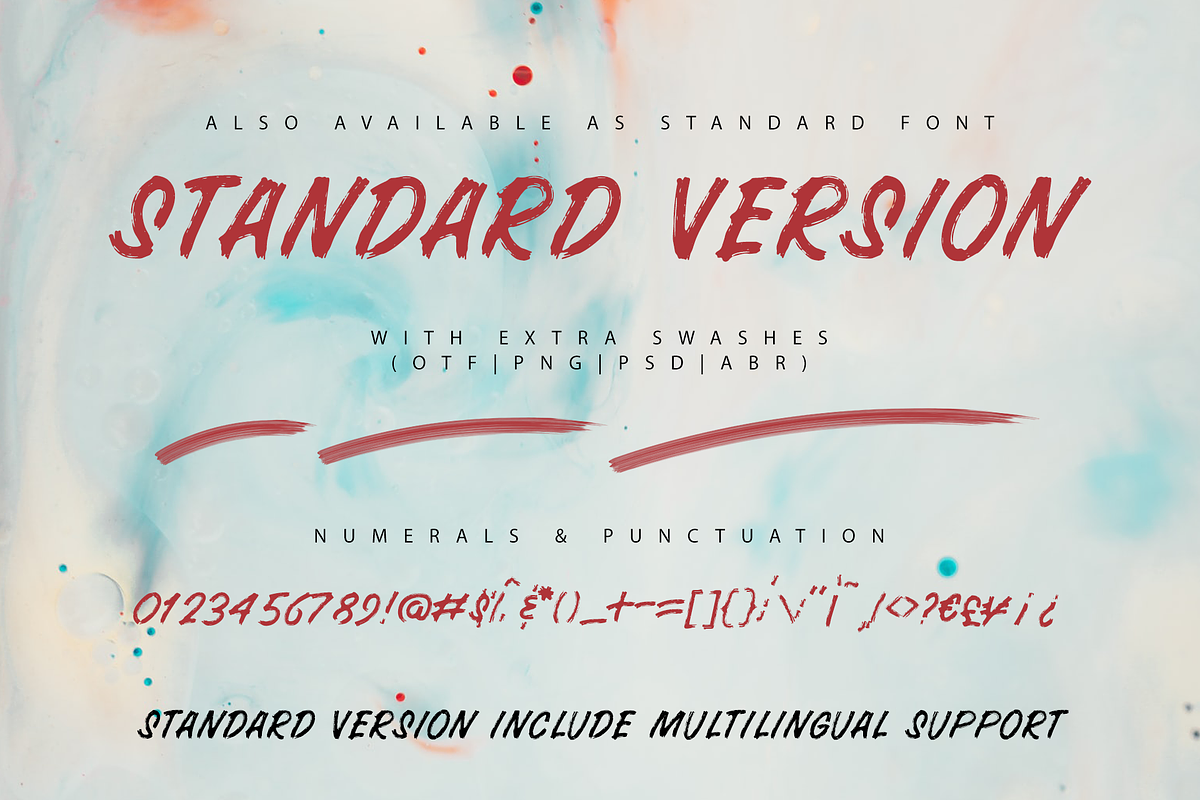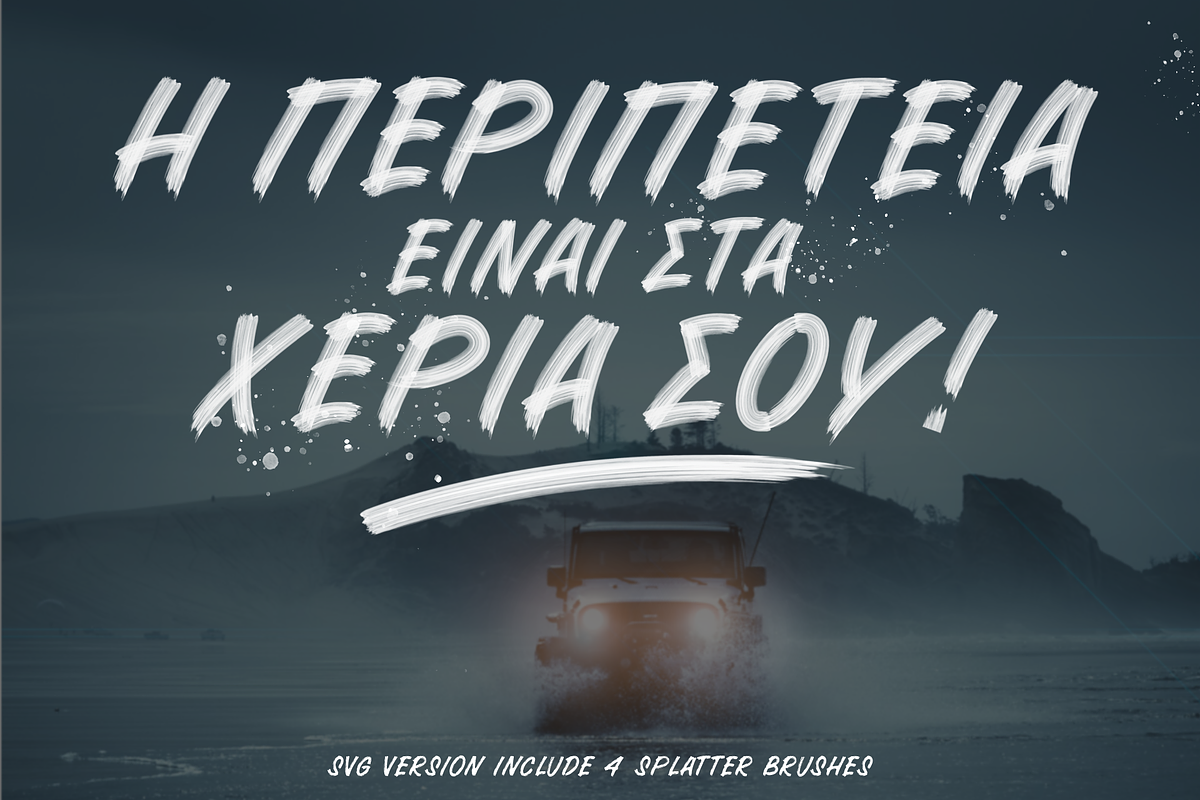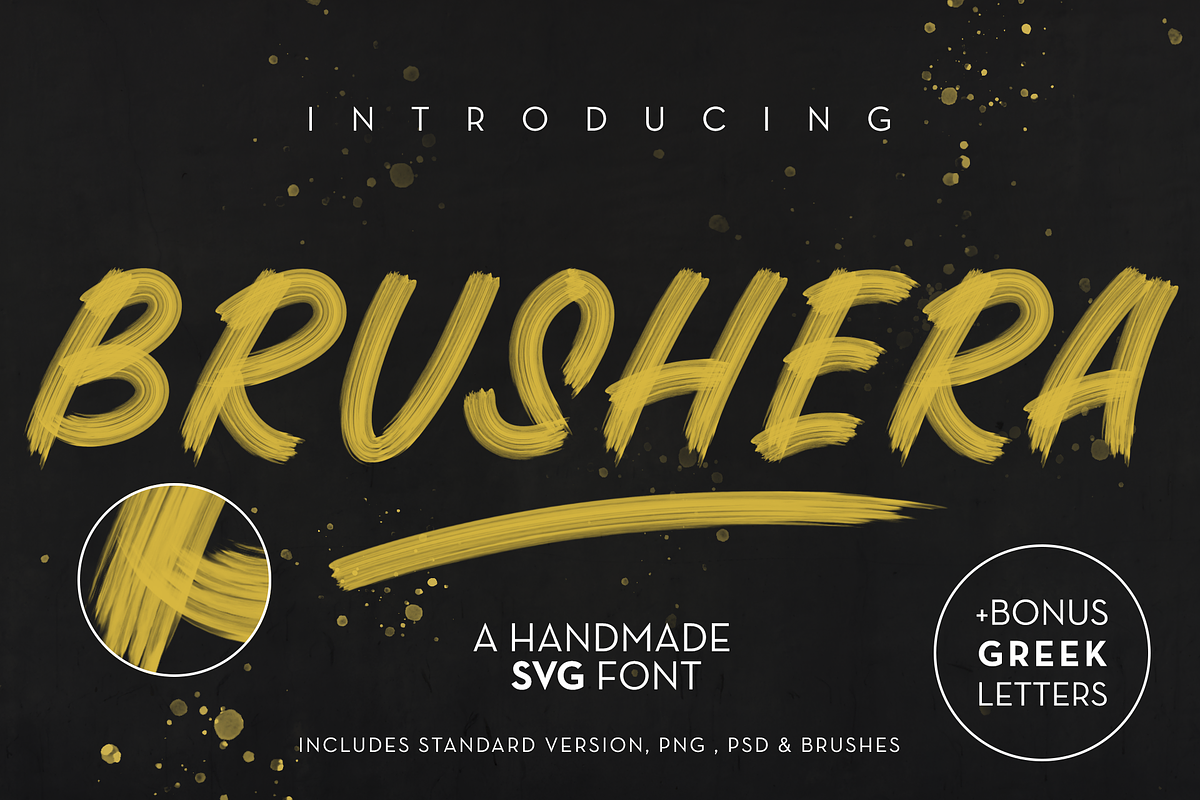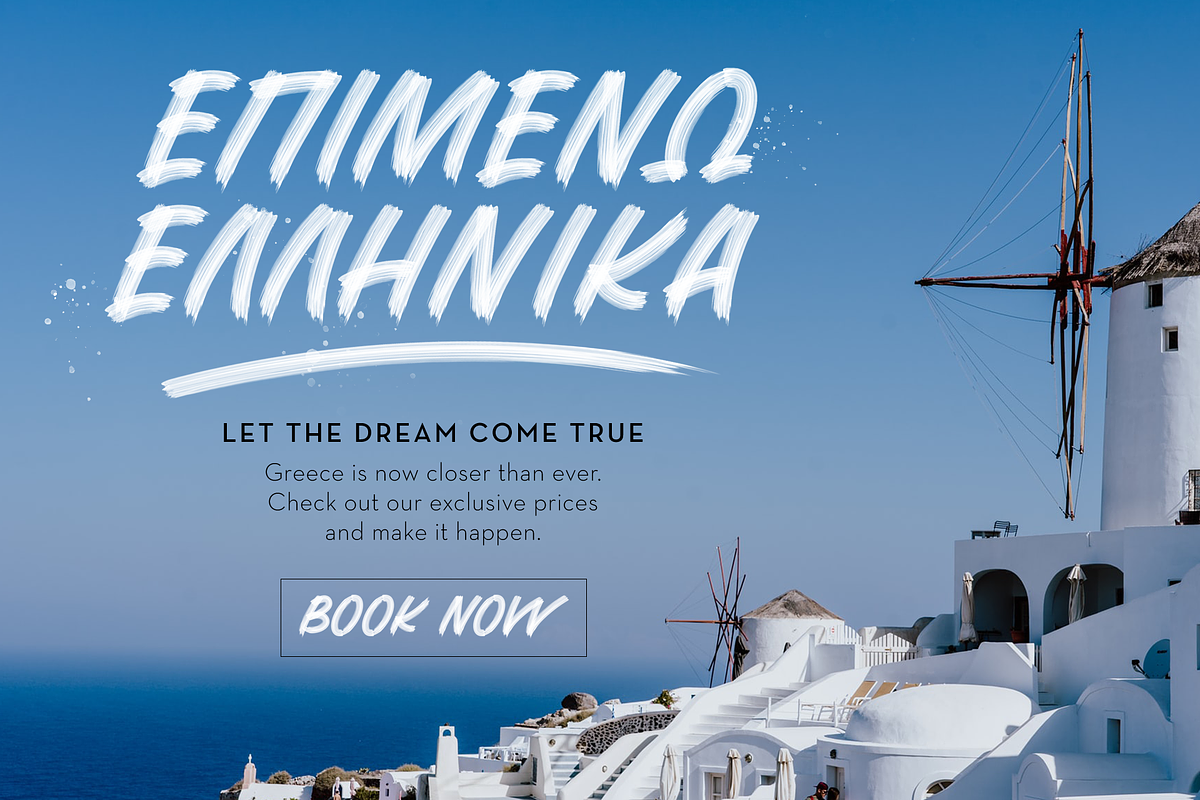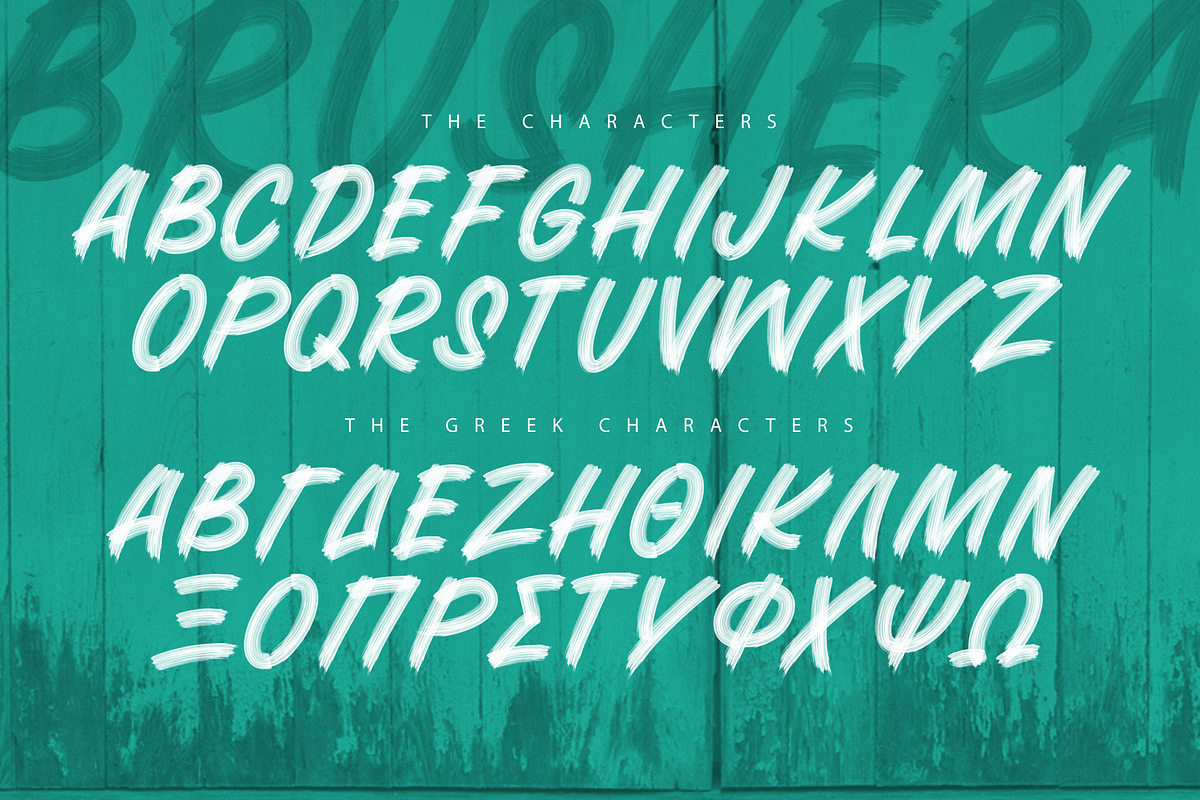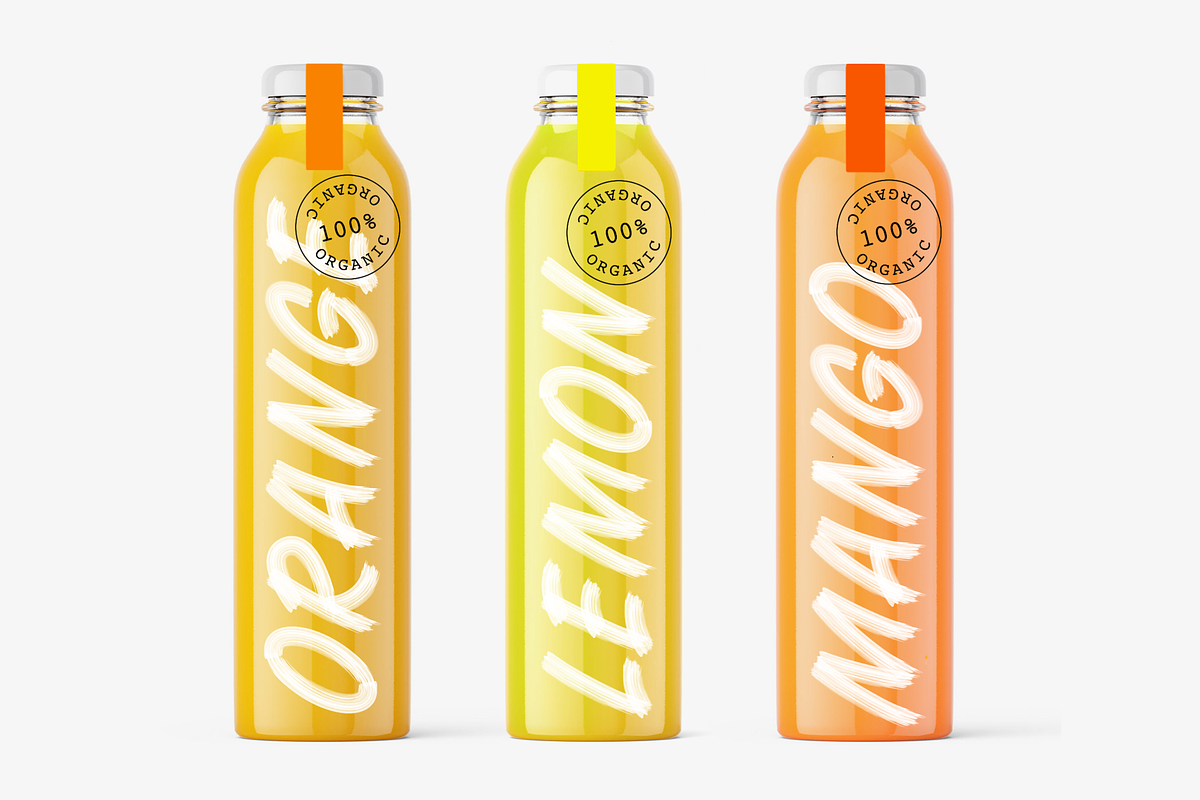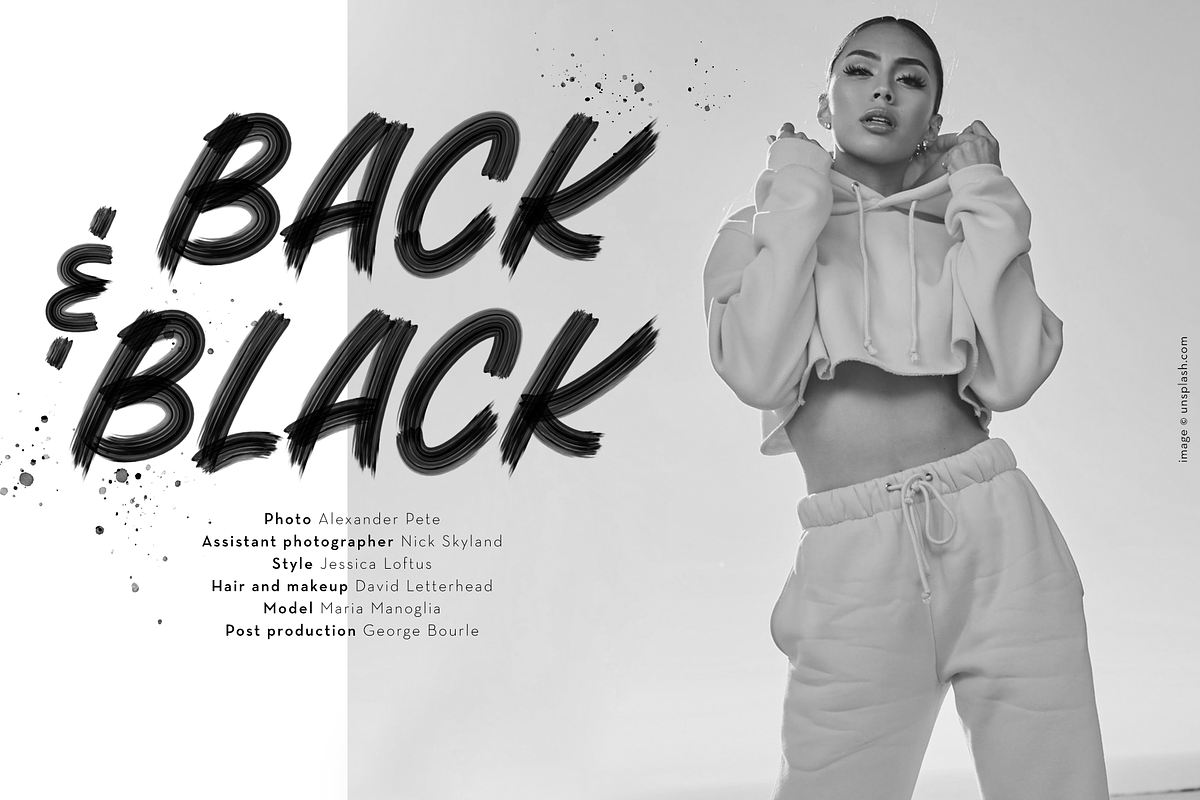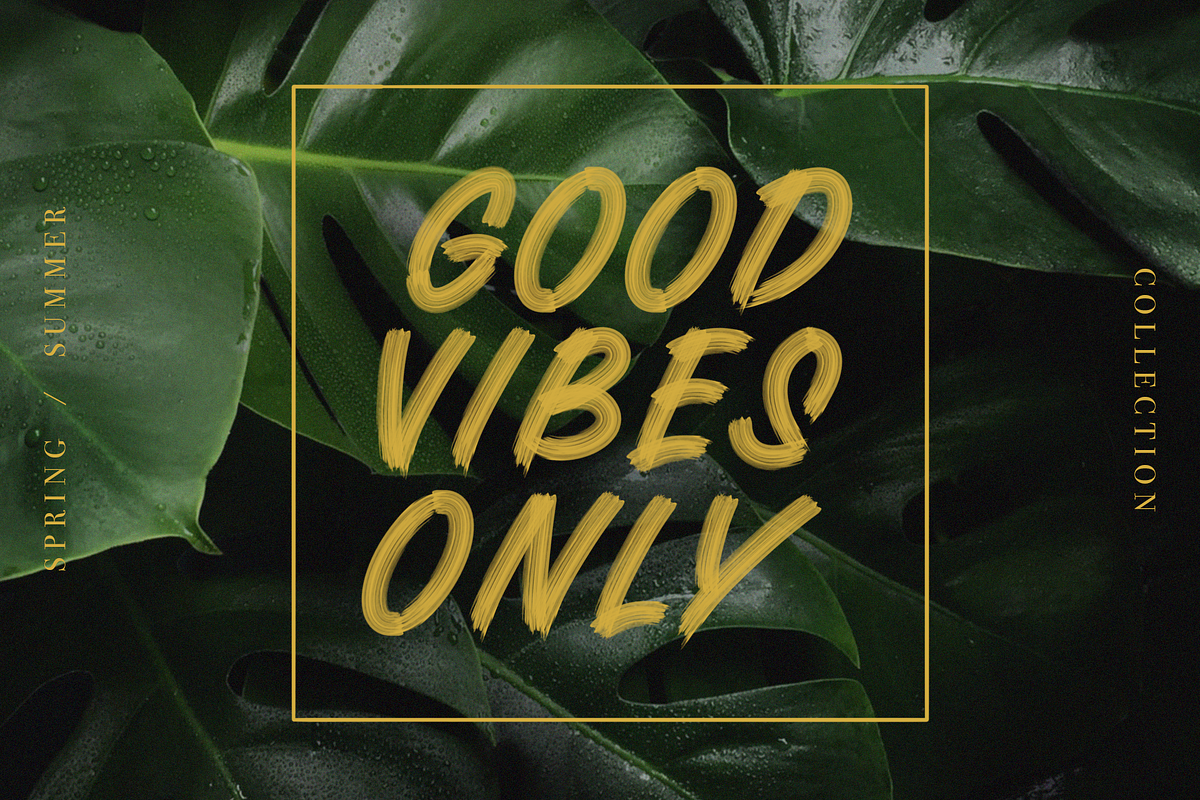
BRUSHERA SVG FONT + EXTRAS
Introducing BRUSHERA svg font. A cool, modern, bold font, that looks real thanks to its brush strokes. Say hello to SVG fonts, the revolutionary new format, that gives you the power to create stunning typographic designs with detail and texture that with blow your mind. BRUSHERA svg font is inspired from the sign painting letters and looks amazing with high definition of a transparent texture which makes the font look super real.
BRUSHERA SVG FONT The svg version with a transparent texture of a real gouache brush. Includes 3 swashes can by created simply by typing a,b or c.
BRUSHERA STANDARD FONT A Standard version of the Brushera SVG font IN .otf & .ttf format. This is the version with a brush texture without the opacity You can use this version in any software.
Multilingual Support is supported in the Regular fonts, in order to make the svg file size smaller.
- If you live in the sunny side of Greece you can be proud because all the Greek characters are included in all 3 versions of BRUSHERA font.
- Includes 3 swashes can by created simply by typing a,b or c.